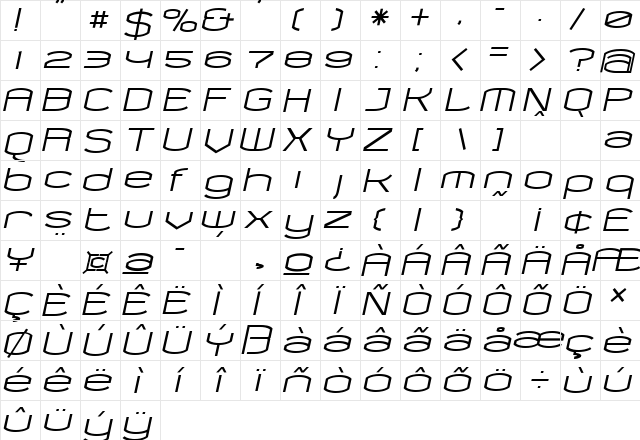
Chord Italic
Design Context for Chord Typeface
Chord takes a measured approach to typography — its balanced proportions and neutral character make it a reliable workhorse for both digital and print work. The dynamic lean of this cut emphasises speed and emphasis in any layout.